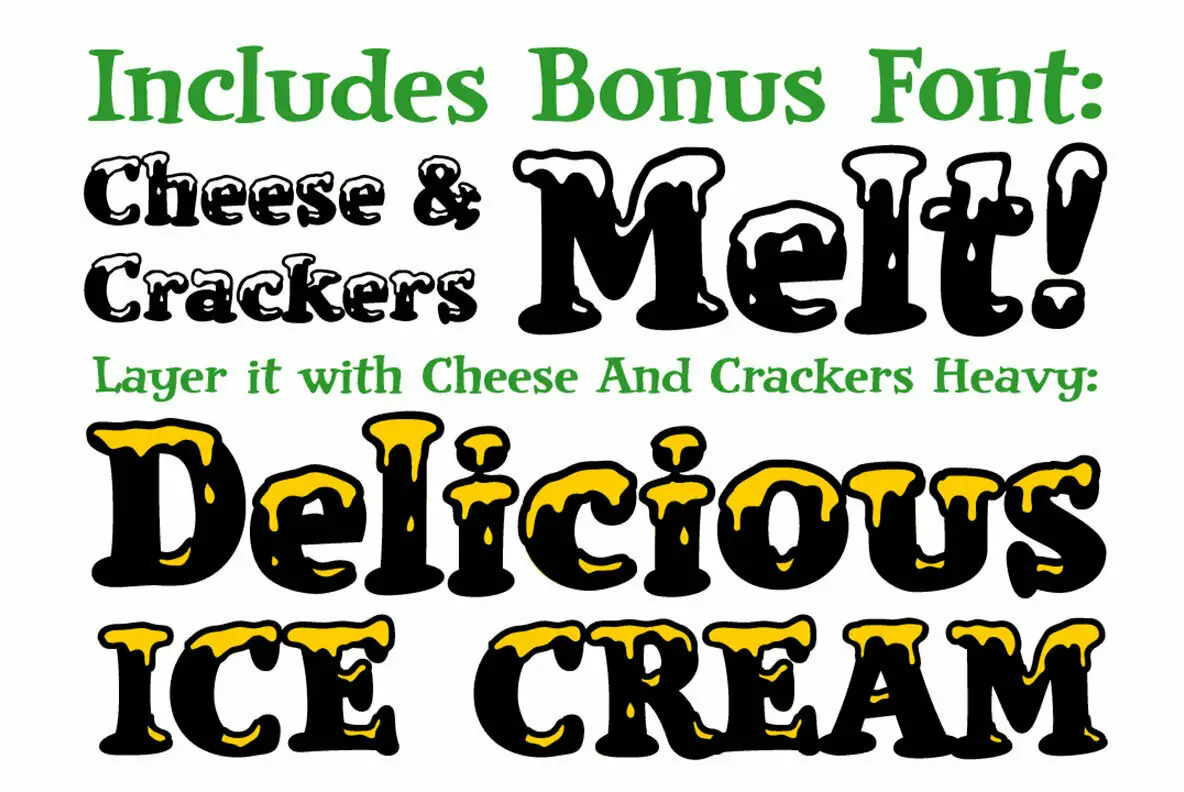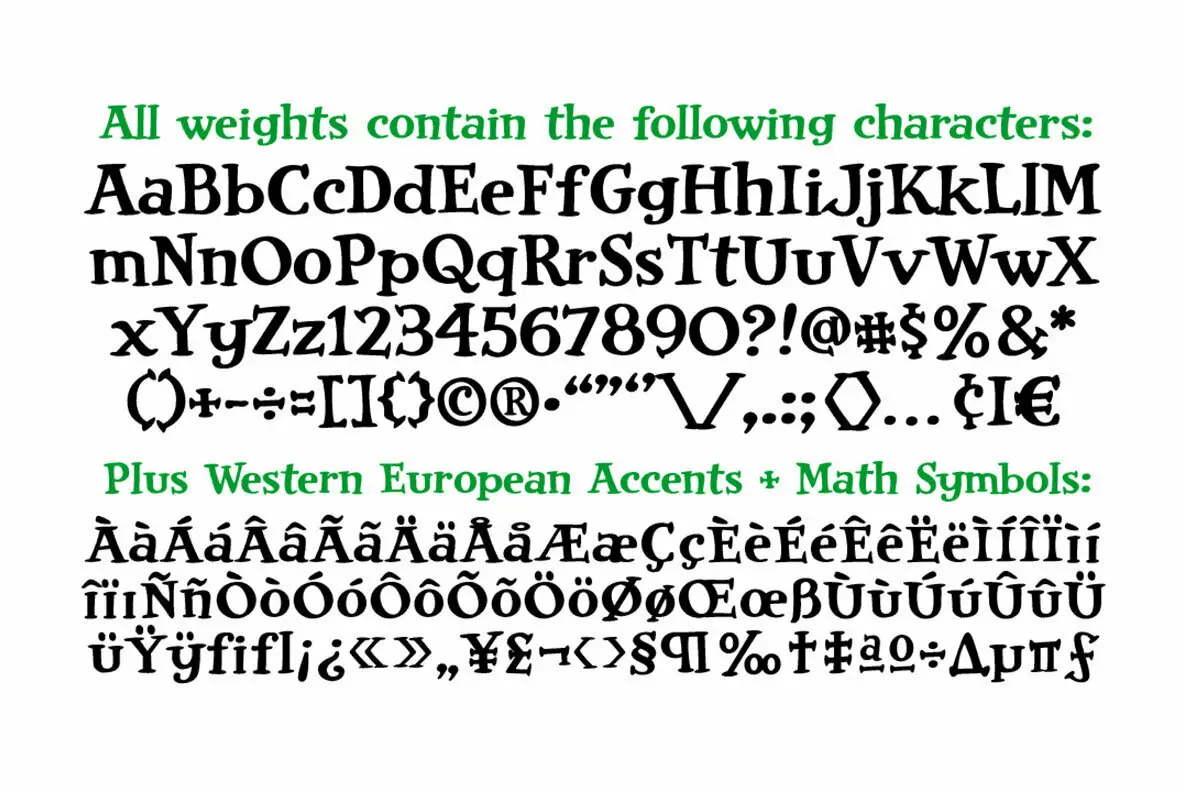
Cheese And Crackers Bold Font Free Download . Using a catalog of over 990k+ fonts (commercial or free) and our font finder ai, we are able to display over 60 fonts for every image uploaded. From classic cheddar to flavorful gouda, our collection of free cheese fonts has something for everyone. Gromit, you forgot the cheese! Every font is free to download! Specially tailored for titan books’ wallace & gromit comic strips, cheese & crackers is a soft serifed set of fonts. Designed by john roshell, cheese and crackers is a display serif font family. Download cheese and crackers bold italic font. Gromit, you forgot the cheesespecially tailored for titan books'' wallace & gromit. Click to find the best 33 free fonts in the cheese style. Cheese and crackers contains 6 styles and family package options. Using a catalog of over 990k+ fonts (commercial or free) and our font finder ai, we are able to display over 60 fonts for every image uploaded. Discover the perfect cheese font for your project!
Using a catalog of over 990k+ fonts (commercial or free) and our font finder ai, we are able to display over 60 fonts for every image uploaded. Download cheese and crackers bold italic font. Specially tailored for titan books’ wallace & gromit comic strips, cheese & crackers is a soft serifed set of fonts. Designed by john roshell, cheese and crackers is a display serif font family. Every font is free to download! Using a catalog of over 990k+ fonts (commercial or free) and our font finder ai, we are able to display over 60 fonts for every image uploaded. Cheese and crackers contains 6 styles and family package options. Gromit, you forgot the cheesespecially tailored for titan books'' wallace & gromit. Gromit, you forgot the cheese! Discover the perfect cheese font for your project!
Cheese And Crackers Bold Font Free Download Gromit, you forgot the cheesespecially tailored for titan books'' wallace & gromit. Every font is free to download! Download cheese and crackers bold italic font. Using a catalog of over 990k+ fonts (commercial or free) and our font finder ai, we are able to display over 60 fonts for every image uploaded. From classic cheddar to flavorful gouda, our collection of free cheese fonts has something for everyone. Gromit, you forgot the cheesespecially tailored for titan books'' wallace & gromit. Gromit, you forgot the cheese! Designed by john roshell, cheese and crackers is a display serif font family. Click to find the best 33 free fonts in the cheese style. Discover the perfect cheese font for your project! Cheese and crackers contains 6 styles and family package options. Using a catalog of over 990k+ fonts (commercial or free) and our font finder ai, we are able to display over 60 fonts for every image uploaded. Specially tailored for titan books’ wallace & gromit comic strips, cheese & crackers is a soft serifed set of fonts.
Cracker Barrel Rich & Bold Cheddar Jack Marbled Cheese Cubes, 2 oz Bag Cheese And Crackers Bold Font Free Download Using a catalog of over 990k+ fonts (commercial or free) and our font finder ai, we are able to display over 60 fonts for every image uploaded. Download cheese and crackers bold italic font. Gromit, you forgot the cheesespecially tailored for titan books'' wallace & gromit. Every font is free to download! Designed by john roshell, cheese and crackers is. Cheese And Crackers Bold Font Free Download.
Cracker Barrel Cheese Rich & Bold Cheddar in 2020 Cracker barrel Cheese And Crackers Bold Font Free Download Using a catalog of over 990k+ fonts (commercial or free) and our font finder ai, we are able to display over 60 fonts for every image uploaded. From classic cheddar to flavorful gouda, our collection of free cheese fonts has something for everyone. Gromit, you forgot the cheesespecially tailored for titan books'' wallace & gromit. Designed by john roshell, cheese. Cheese And Crackers Bold Font Free Download.
Crackers That Go With Cream Cheese at Sandra Linden blog Cheese And Crackers Bold Font Free Download Gromit, you forgot the cheese! Gromit, you forgot the cheesespecially tailored for titan books'' wallace & gromit. Click to find the best 33 free fonts in the cheese style. Discover the perfect cheese font for your project! Designed by john roshell, cheese and crackers is a display serif font family. Download cheese and crackers bold italic font. Specially tailored for. Cheese And Crackers Bold Font Free Download.
MyFonts Bouncy typefaces Cheese And Crackers Bold Font Free Download From classic cheddar to flavorful gouda, our collection of free cheese fonts has something for everyone. Using a catalog of over 990k+ fonts (commercial or free) and our font finder ai, we are able to display over 60 fonts for every image uploaded. Designed by john roshell, cheese and crackers is a display serif font family. Click to find the. Cheese And Crackers Bold Font Free Download.
All search results for "cheese" Urban Fonts Cheese And Crackers Bold Font Free Download Click to find the best 33 free fonts in the cheese style. Every font is free to download! Download cheese and crackers bold italic font. Cheese and crackers contains 6 styles and family package options. Using a catalog of over 990k+ fonts (commercial or free) and our font finder ai, we are able to display over 60 fonts for every. Cheese And Crackers Bold Font Free Download.
Wensleydale Collection Of Cheese And Crackers In A Bowl Free Cheese And Crackers Bold Font Free Download Click to find the best 33 free fonts in the cheese style. Using a catalog of over 990k+ fonts (commercial or free) and our font finder ai, we are able to display over 60 fonts for every image uploaded. Gromit, you forgot the cheesespecially tailored for titan books'' wallace & gromit. Designed by john roshell, cheese and crackers is a. Cheese And Crackers Bold Font Free Download.
Mac and cheese crackers r/nostalgia Cheese And Crackers Bold Font Free Download Using a catalog of over 990k+ fonts (commercial or free) and our font finder ai, we are able to display over 60 fonts for every image uploaded. Gromit, you forgot the cheesespecially tailored for titan books'' wallace & gromit. Download cheese and crackers bold italic font. Gromit, you forgot the cheese! Specially tailored for titan books’ wallace & gromit comic. Cheese And Crackers Bold Font Free Download.
Blue Cheese and Crackers Food Label Blue Dog Digital Download Etsy in Cheese And Crackers Bold Font Free Download Cheese and crackers contains 6 styles and family package options. Using a catalog of over 990k+ fonts (commercial or free) and our font finder ai, we are able to display over 60 fonts for every image uploaded. Discover the perfect cheese font for your project! Every font is free to download! Designed by john roshell, cheese and crackers is a. Cheese And Crackers Bold Font Free Download.